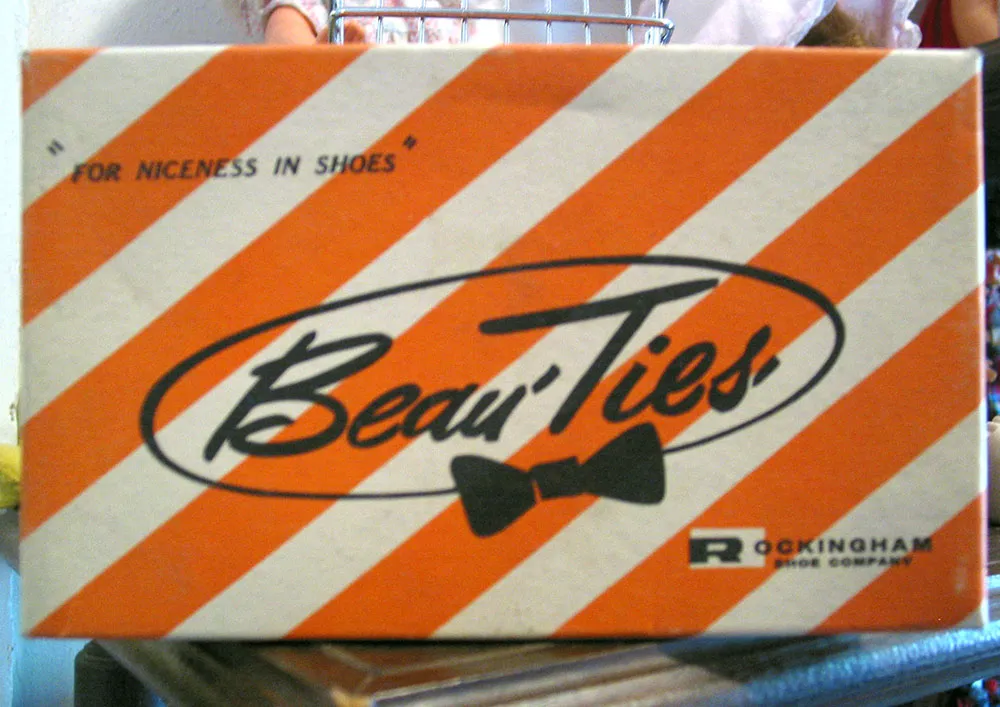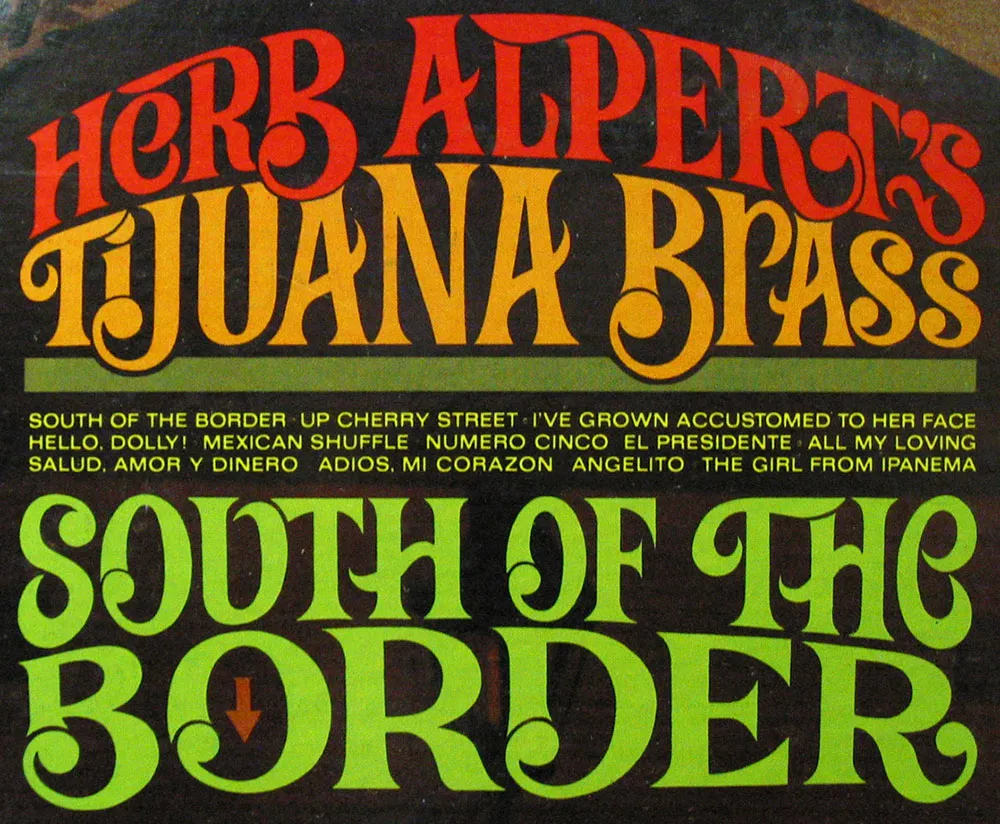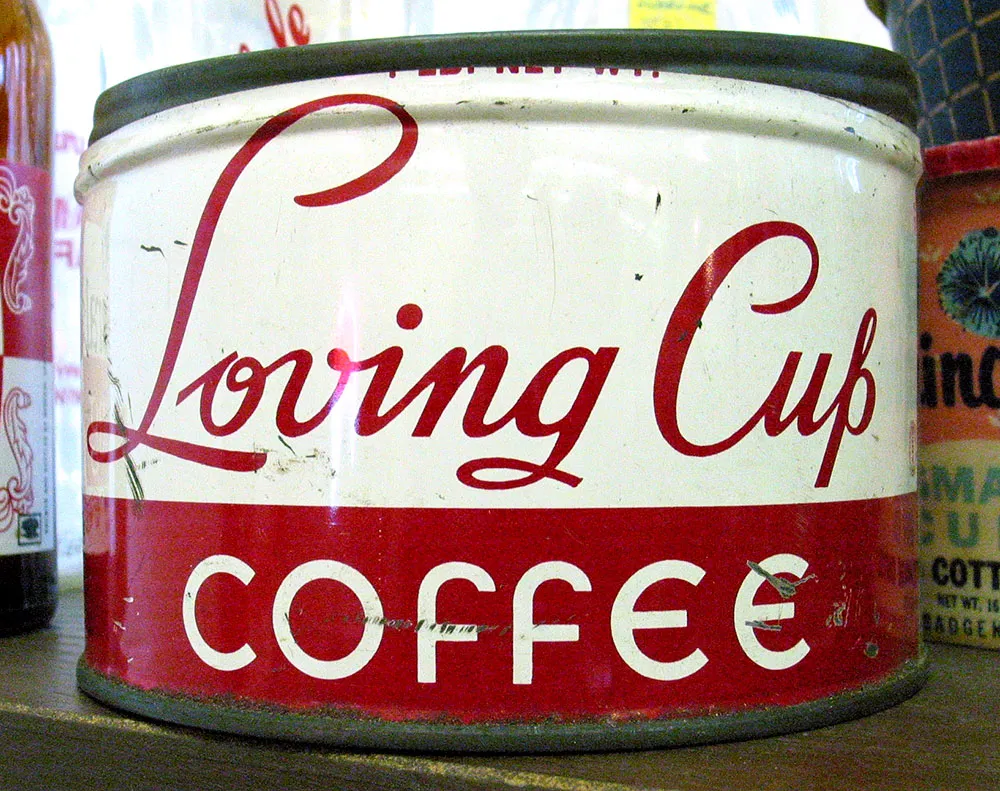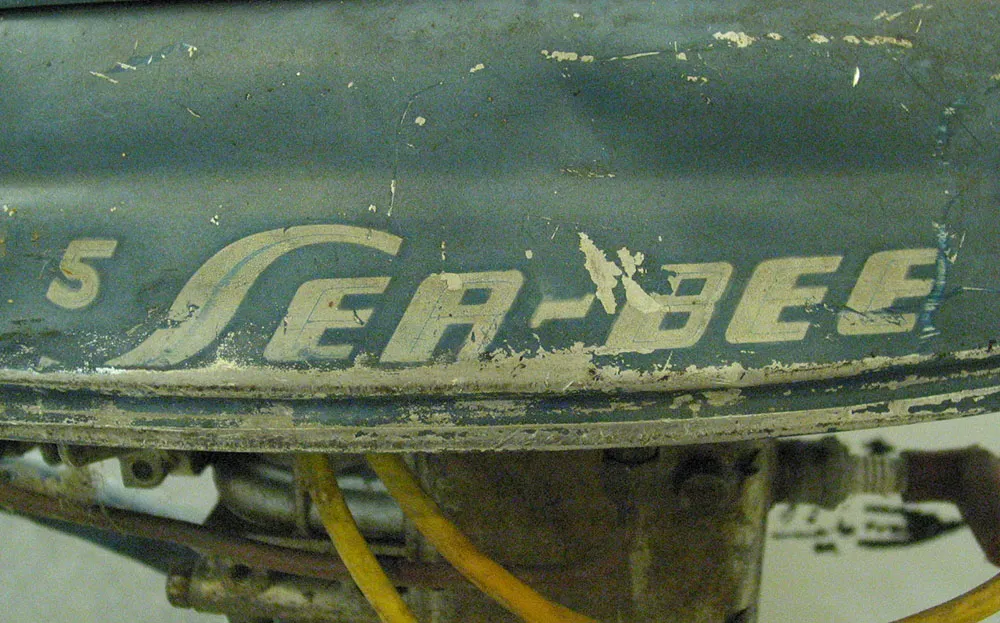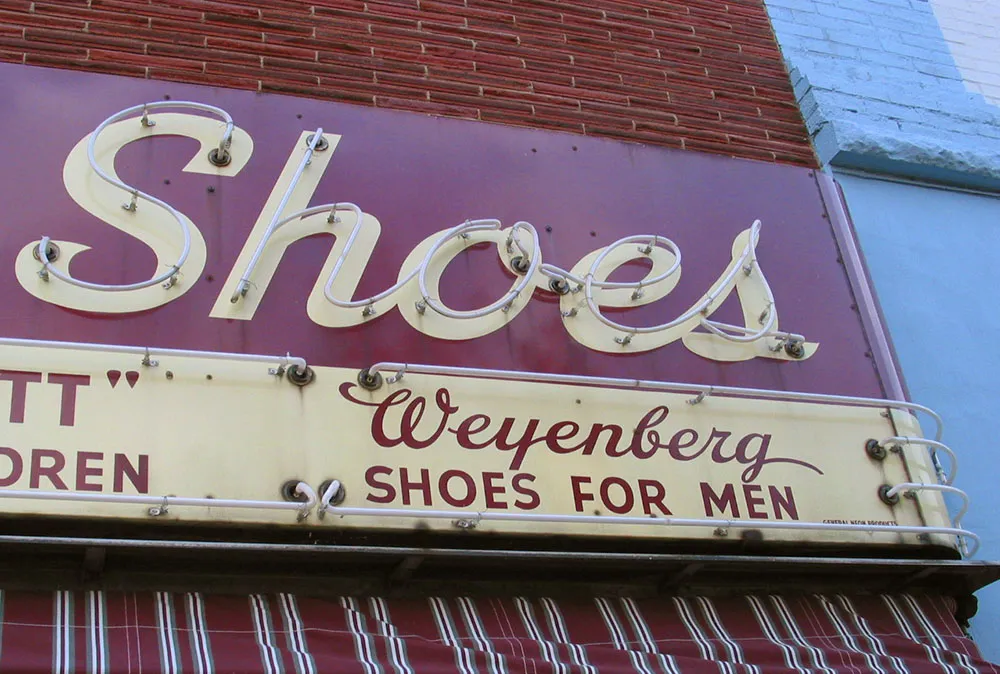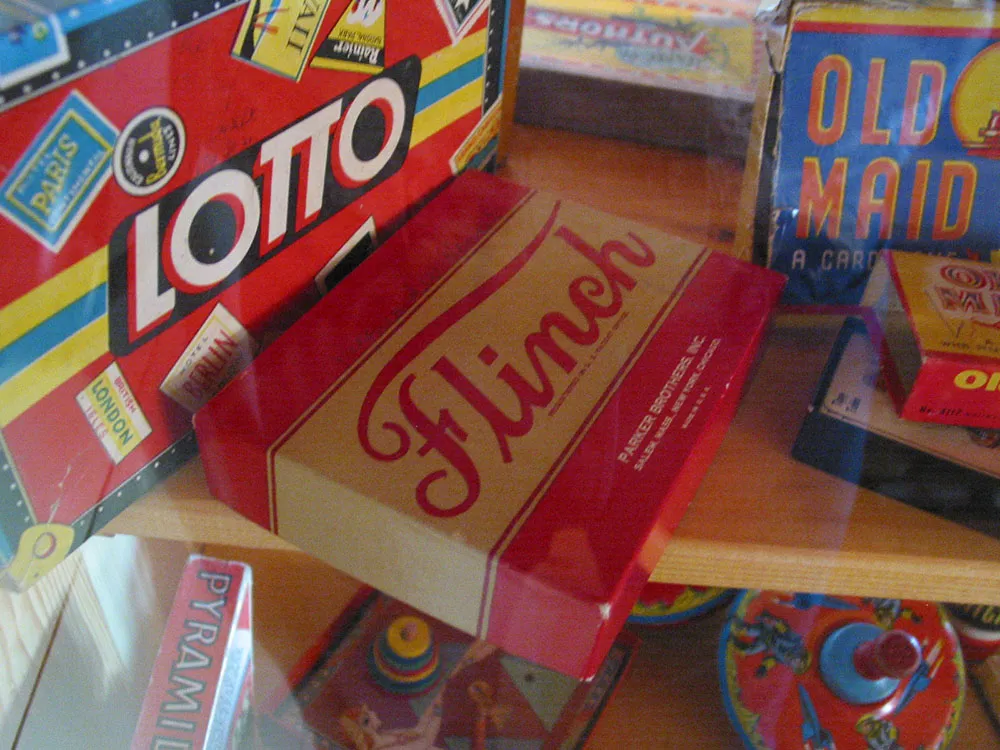
Like it says on the box: “For Niceness In Shoes.” Seen in an antique store on July 7, 2004 in Prescott, Minnesota.
Some nice lettering seen in an antique store in Hixton, Wisconsin on July 29, 2004.
Some spicy lettering from the cover of “Herb Alpert’s Tijuana Brass / South of the Border” (released in 1964), a record album I picked up in an antique store. It looks like it might have been done by Ed Benguiat—it’s very much in his style, particularly the “wedged-in” layout. The design credit just says “Apple Graphics.” The arrow is a nice touch. Just in case you’re bad with directions, I guess.
The record was absent, so I guess I’ll miss out hearing “Hello, Dolly!” sung with a Spanish accent.
An assortment of vintage game boxes seen in the toy museum at Lark Toys, Kellogg, Minnesota, on August 21, 2004.
A very-well-maintained vintage metal/neon hand-lettered sign. It looks almost brand new. This sign has been in continuous use since the 1940s. Seen in Beloit, Wisconsin on August 8, 2004.
Old outboard boat motor seen in an antique store in Hixton, Wisconsin, July 29, 2004.